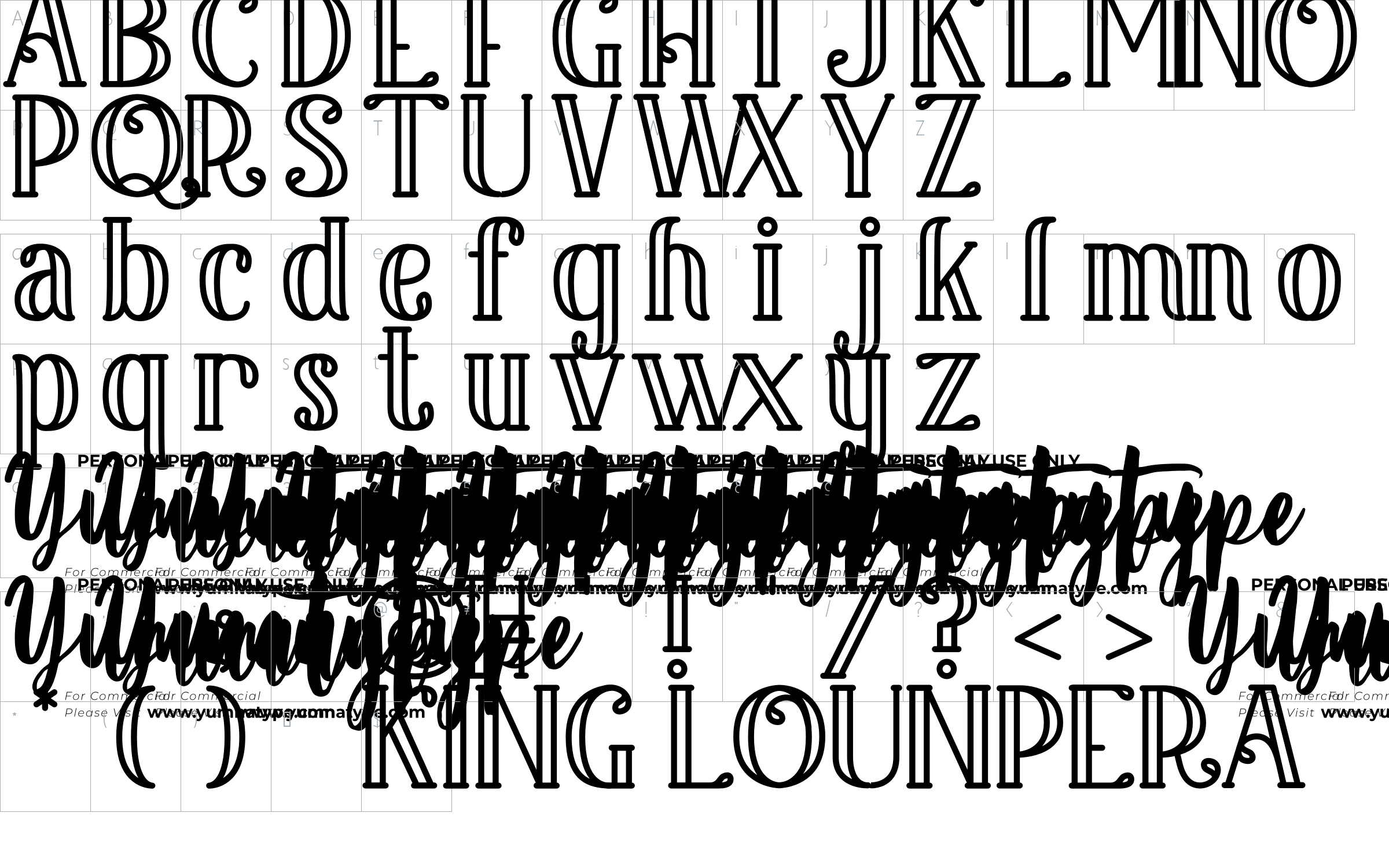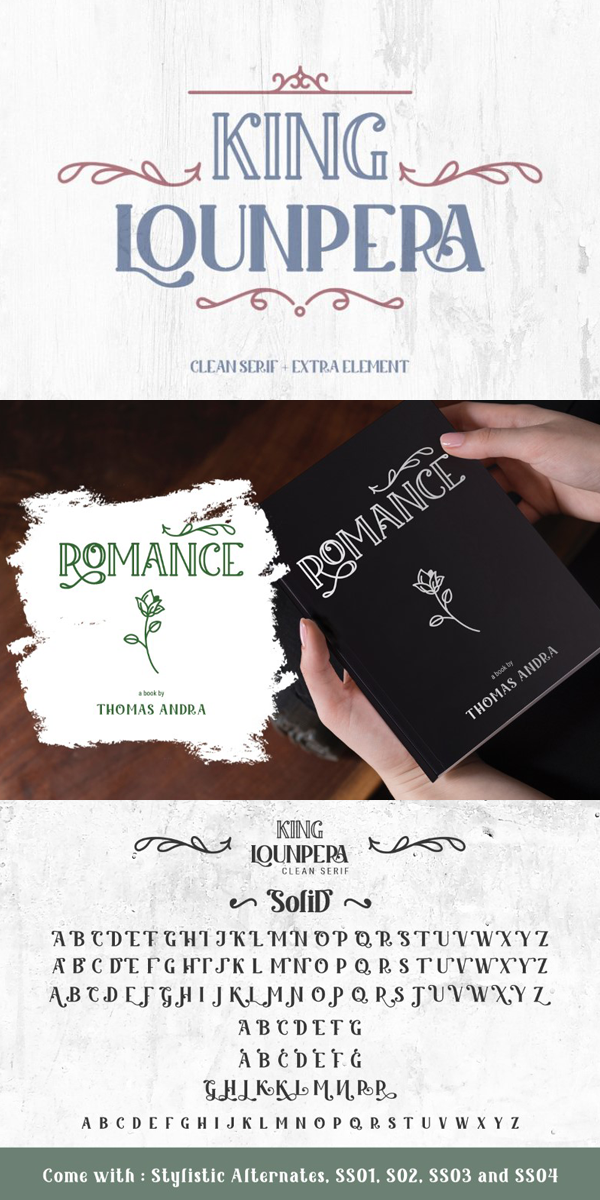
King Lounpera Outline Font
About King Lounpera Outline
King Lounpera is a beautiful Display font. The family consist from 2 font Solid and Outline. This font is suitable for any design like branding, quotes, t-shirt printing and etc.
- King Lounpera Solid
- King Lounpera Outline
-Accents (Multilingual Characters)
-Numerals and Punctuations (OpenType Standard)
-15 Ligatures
-4 Uppercase Alternates